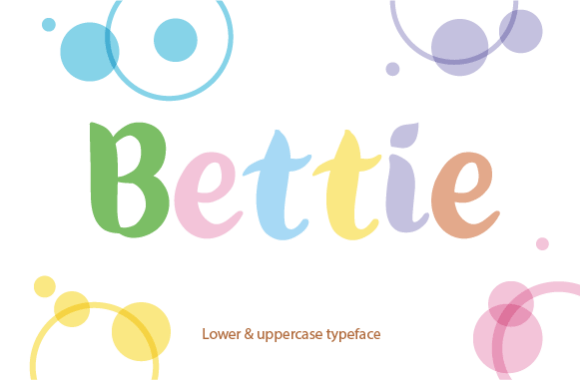
In the digital realm, fonts play a crucial role in shaping the overall impact of your creative vision. They possess the unique ability to evoke emotions, convey messages, and set the tone for your digital masterpieces. As you embark on your quest to select the perfect font, allow me to introduce you to Bettie Font, a script font that will captivate your audience and leave a lasting impression.
Bettie Font is an extraordinary creation of StairheadStore, designed to enchant the world of handwritten fonts. Its distinctive style exudes a genuine sense of playfulness and approachability, making it the ideal choice for projects that demand a touch of whimsy and warmth. With its effortless readability and childlike charm, Bettie Font effortlessly captures the essence of youthful innocence, making it the perfect companion for any project that targets a younger audience.
As a script font, Bettie Font possesses an inherent charm that sets it apart from the ordinary. Its meticulously crafted curves and playful strokes add a personal touch to your digital designs, evoking a sense of authenticity and genuineness. Whether you're crafting eye-catching social media posts, creating captivating presentations, or designing heartfelt greeting cards, Bettie Font has the remarkable ability to transform your words into works of art, leaving your audience spellbound.
The versatility of Bettie Font is truly remarkable. Its ability to seamlessly blend with various design styles makes it an indispensable tool for any creative professional. Whether you prefer the minimalist aesthetic or revel in the vibrancy of bold colors, Bettie Font seamlessly adapts, enhancing your designs with its understated elegance. Its wide range of applications is a testament to its versatility, making it the perfect choice for bloggers, graphic designers, social media enthusiasts, and anyone seeking to add a touch of magic to their digital creations.